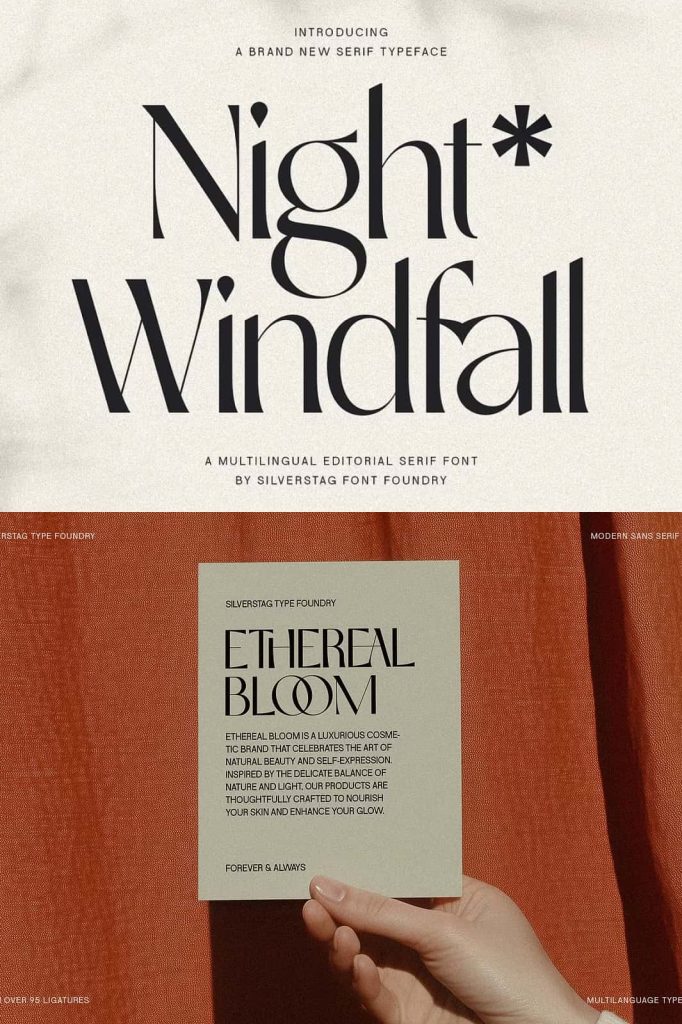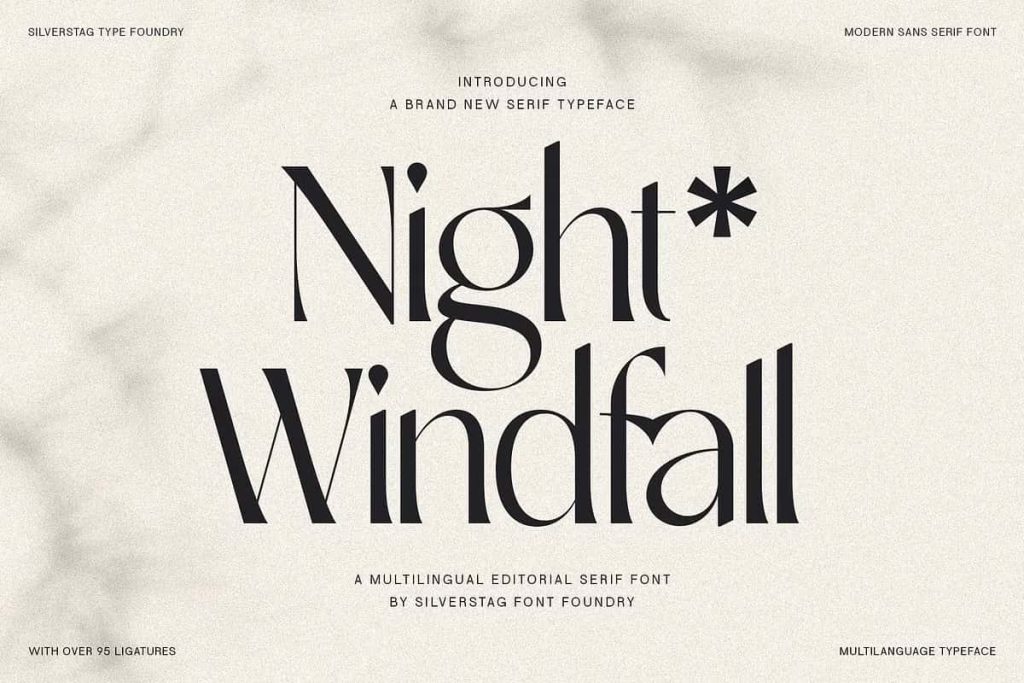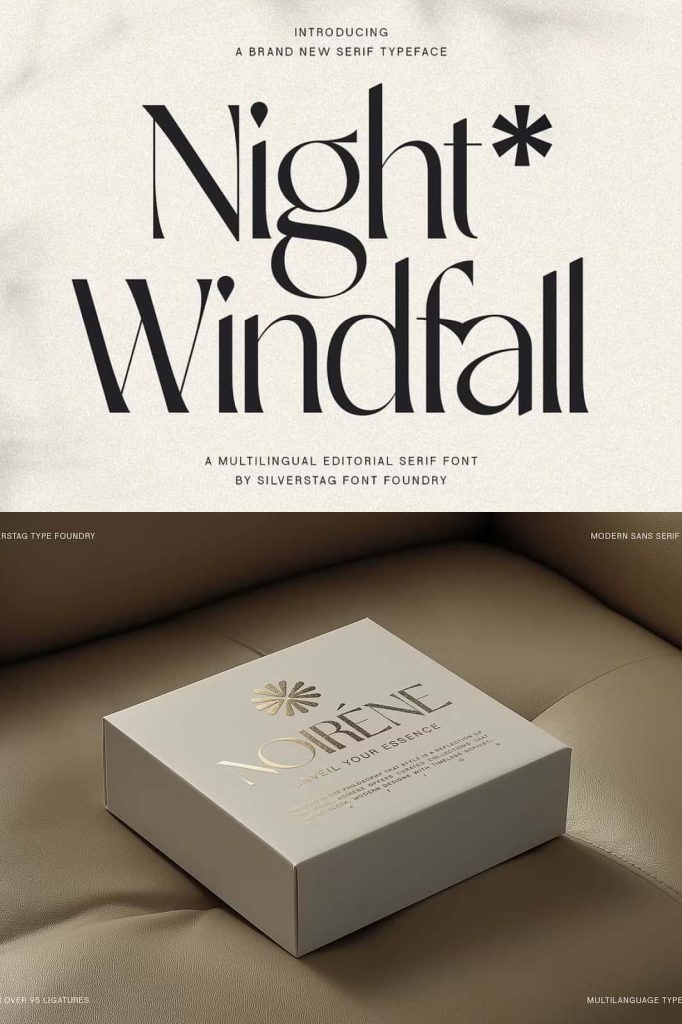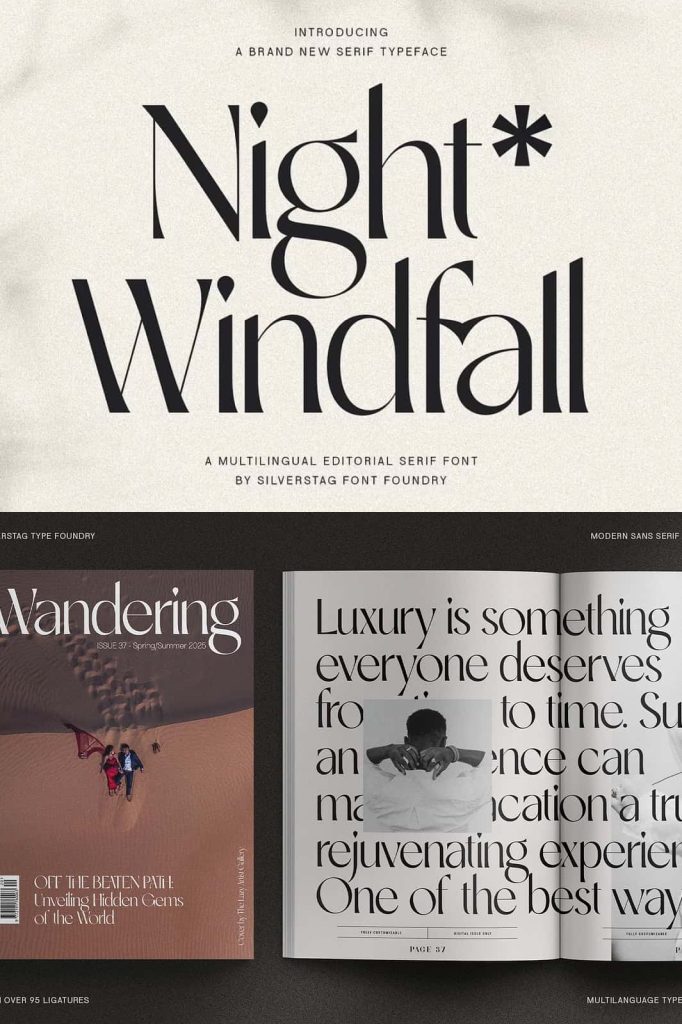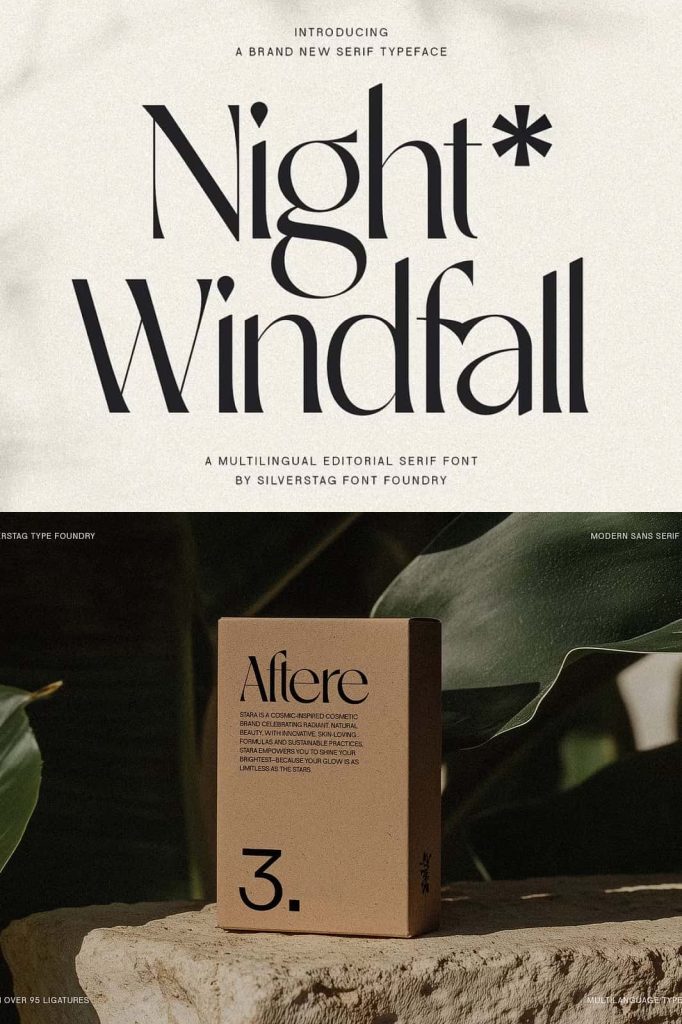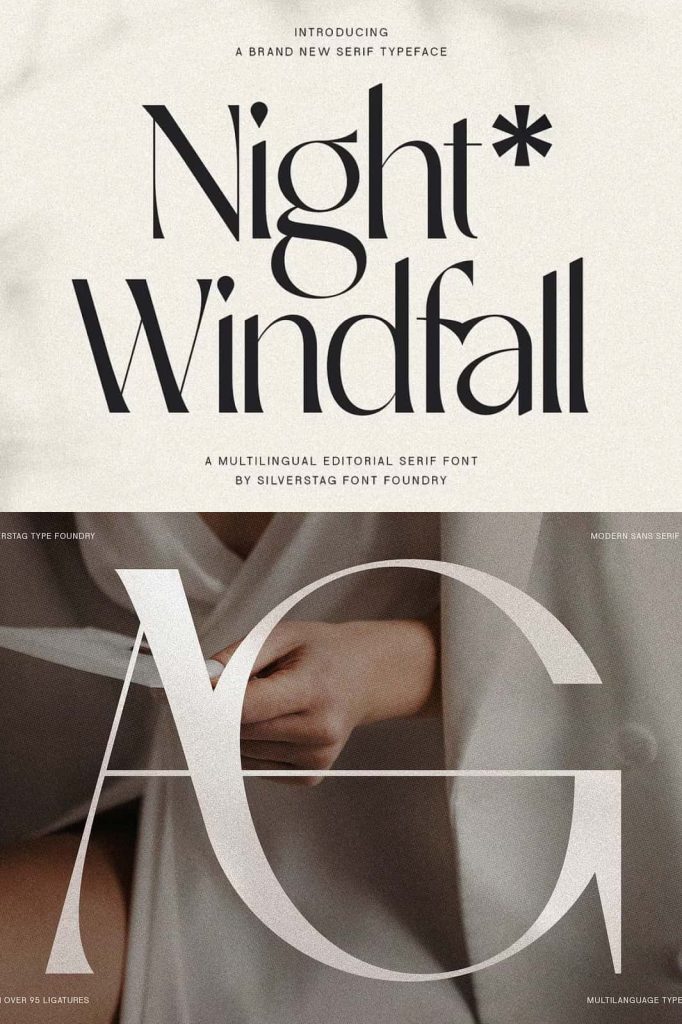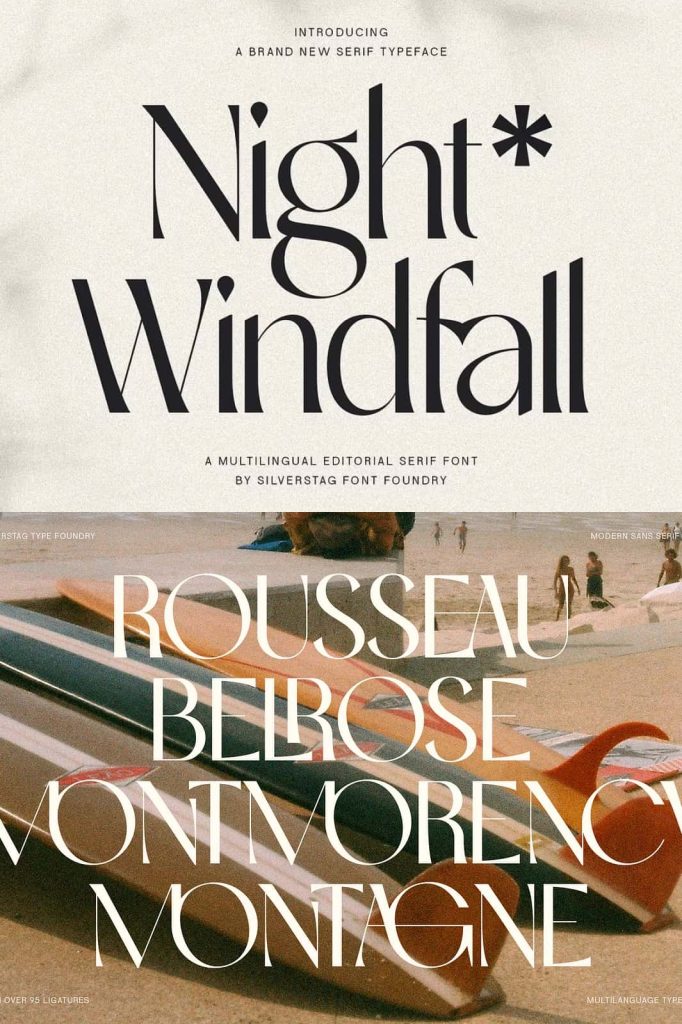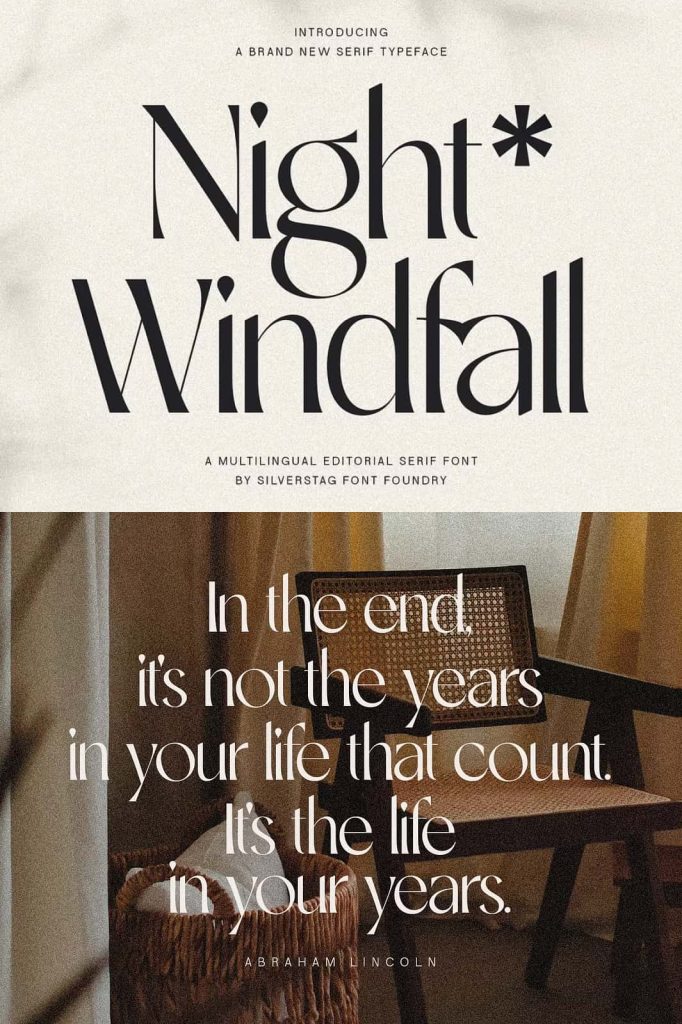
Introducing SLTF Night Windfall, a stunningly chic sans serif font designed to bring a touch of sophistication to your creative projects. Crafted with meticulous attention to detail, Night Windfall offers over 95 exquisite ligatures and multilingual support for over 90 languages, making it the perfect choice for designers seeking versatility and elegance in one typeface.